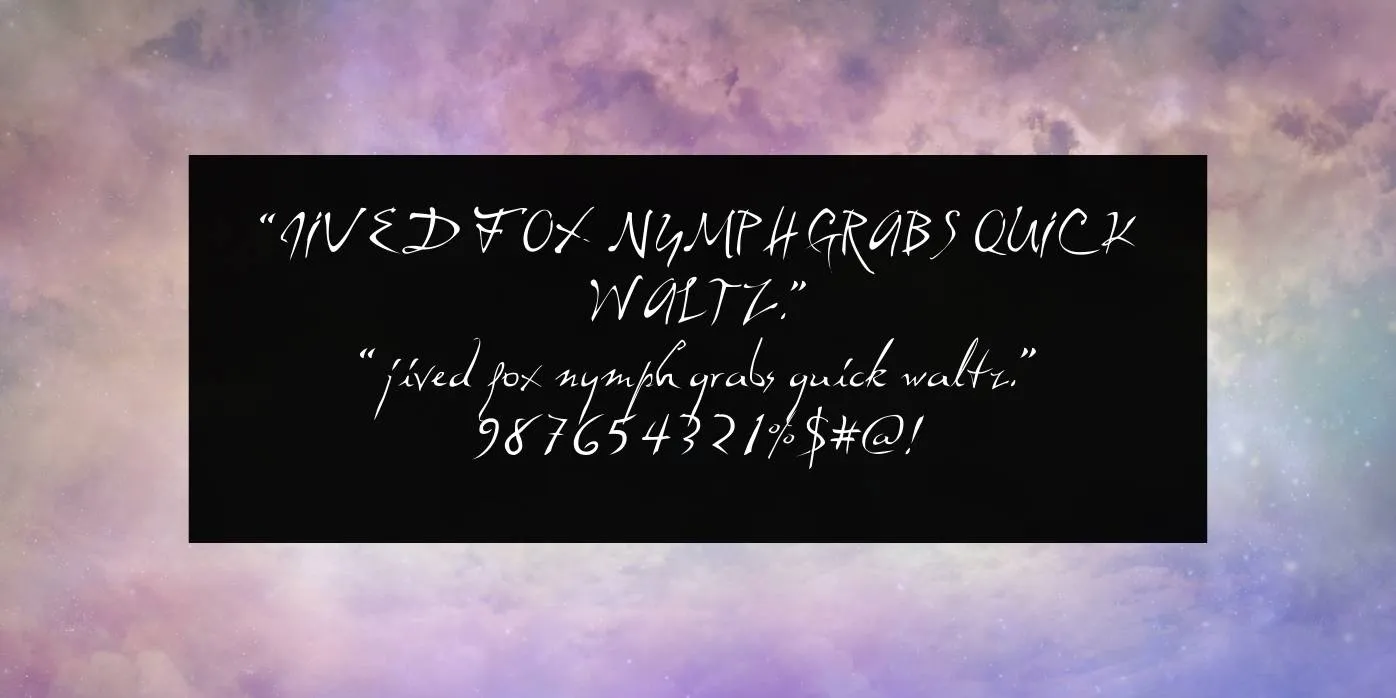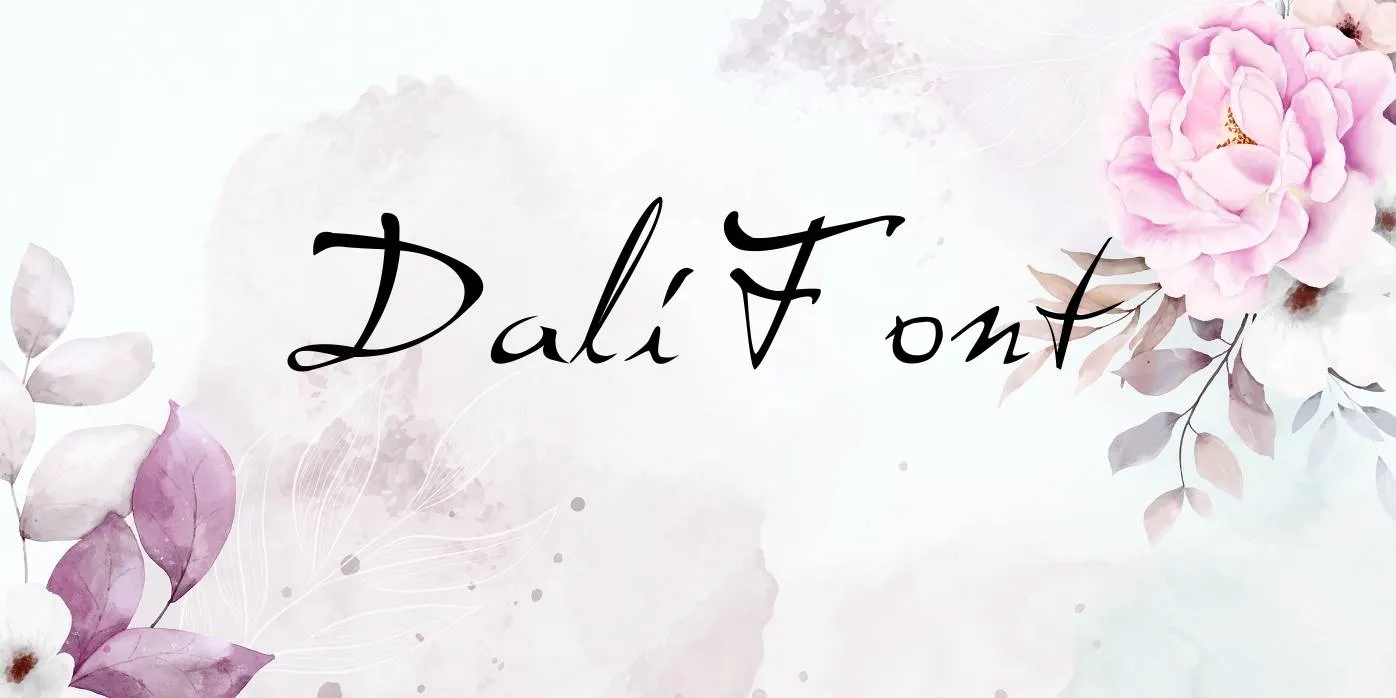
Dali Font
Dali Font is a script typeface designed by Salvador Dali. The font was created in honor of the artist’s work and style. It is an ornate, decorative font that is reminiscent of the art nouveau period. This Font is named after Salvador Dali, a Spanish surrealist artist who was known for his eccentric and unique style.
It’s also a perfect choice for anyone who wants to add a touch of whimsy and fun to their designs. The typeface has a matching personality with other typefaces and can provide cool performance with the pairing of star wars font. If you’re looking for a font that is both unique and stylish, then look no further than this font. It’s the perfect choice for anyone who wants to add a touch of Salvador Dali’s eccentric style to their designs.